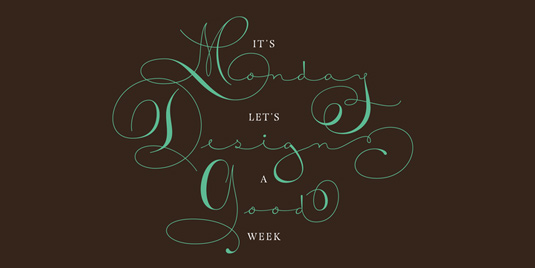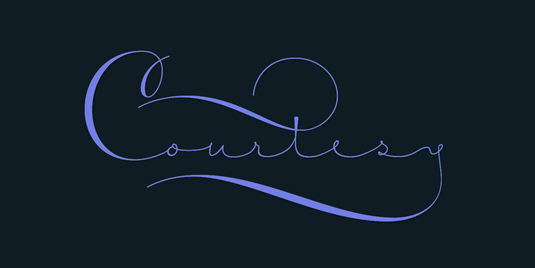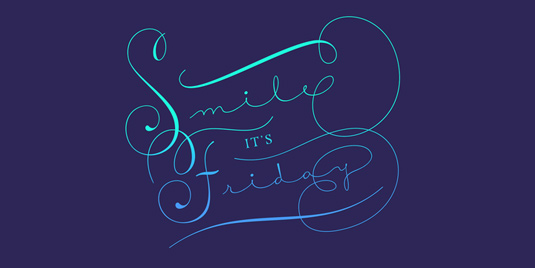
Font of the day: Courtesy Script
Courtesy Script by Alejandro Paul
Courtesy Script, a new ornamental script typeface, was created by designer Alejandro Paul for Sudtipos. Available from MyFonts, Courtesy Script 'captures the elegance of propriety of finely practised Spencarian penmanship, in particular, the Zanerian School. With virtually endless ways to customise its use, Courtesy helps designers create fluid, signature looks on stationery and invitations, book covers, fashion layouts and packaging'.